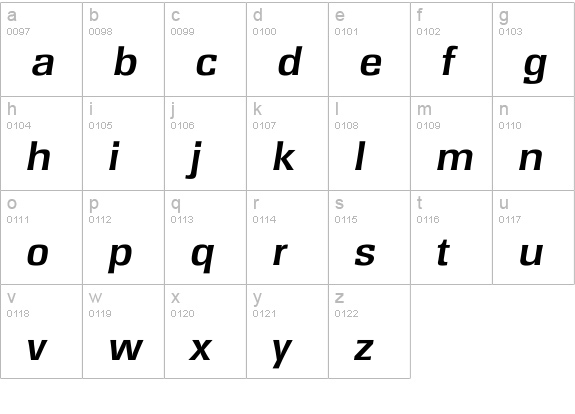
Irochester DemiBold is a sub-bold, structured variant in the Irochester typeface family \xE2\x80\x94 well suited to sub-headlines and emphasised passages.
The Irochester DemiBold font is a captivating typeface that exudes elegance and sophistication. With its bold and assertive strokes, this font commands attention and adds a touch of modernity to any design project. The Irochester DemiBold font is perfect for creating eye-catching headlines, logos, and branding materials. Its strong and confident presence makes it ideal for projects that require a bold statement. What's even better is that the Irochester DemiBold font is available for free! You can easily download it from FontsMarket.com, a trusted platform for font enthusiasts. This means you can elevate your designs without having to spend a fortune. With its sleek and contemporary design, this font is versatile and can be used for both print and digital media. Whether you're designing a website, creating a poster, or crafting a magazine layout, the Irochester DemiBold font will never fail to impress. Its carefully crafted letterforms and attention to detail make it legible and easy to read, even in smaller sizes. This makes it a great choice for body text as well, creating a harmonious and cohesive design. The Irochester DemiBold font is a true gem in the world of typography, and its availability as a free download makes it even more desirable. Don't miss out on the opportunity to enhance your designs with this stunning font. Head over to FontsMarket.com and grab your copy today!